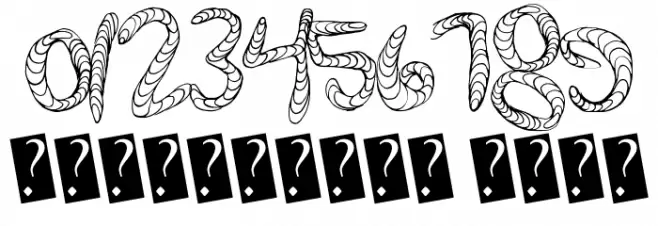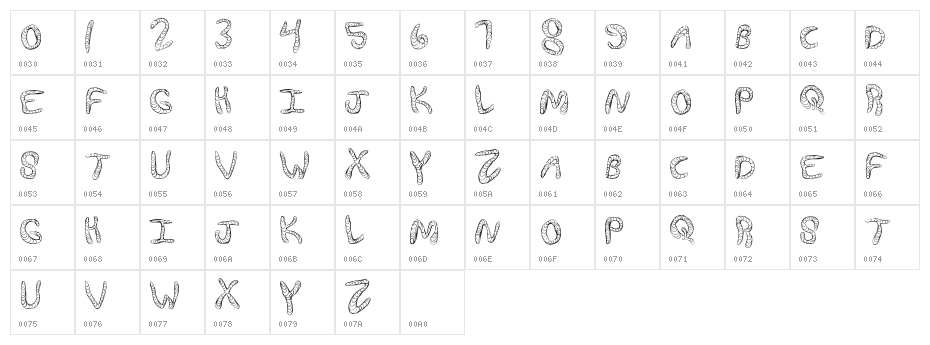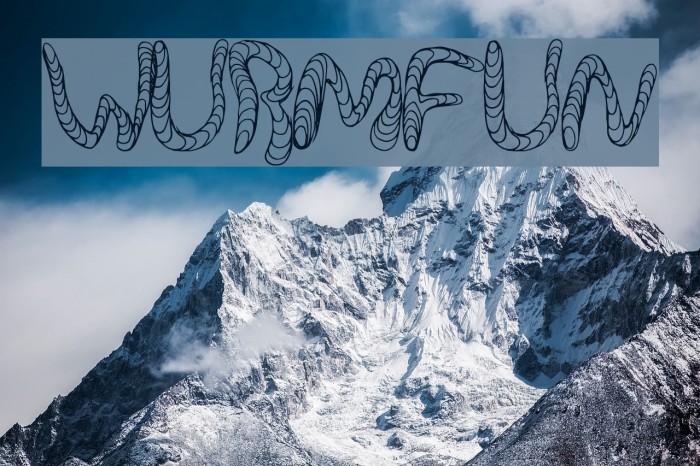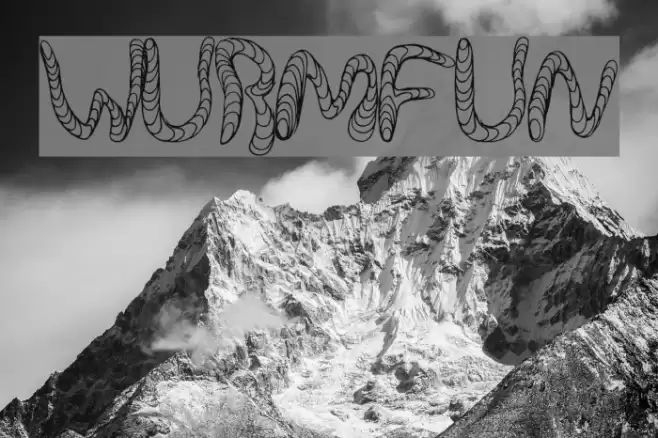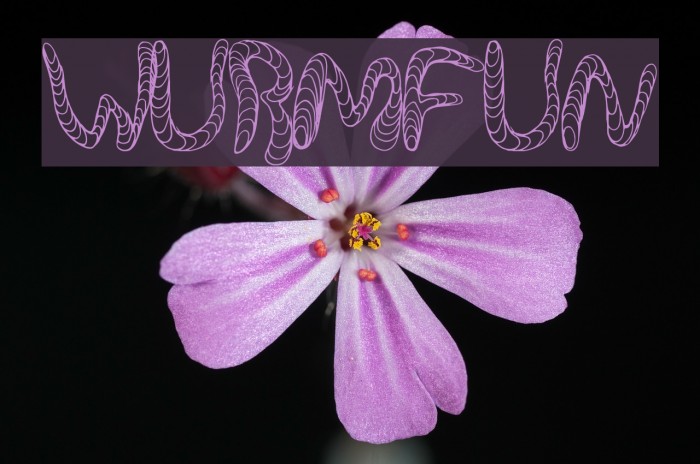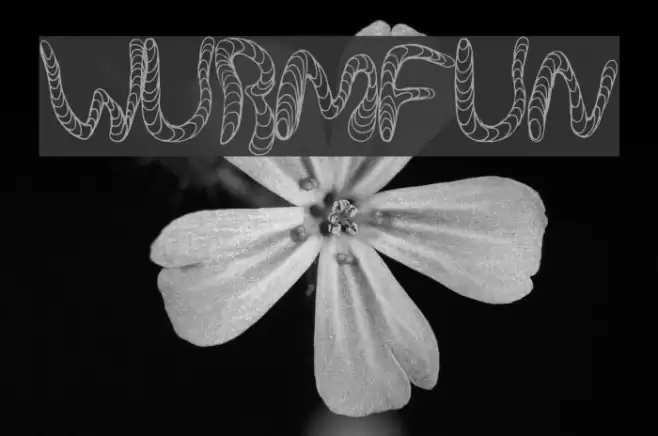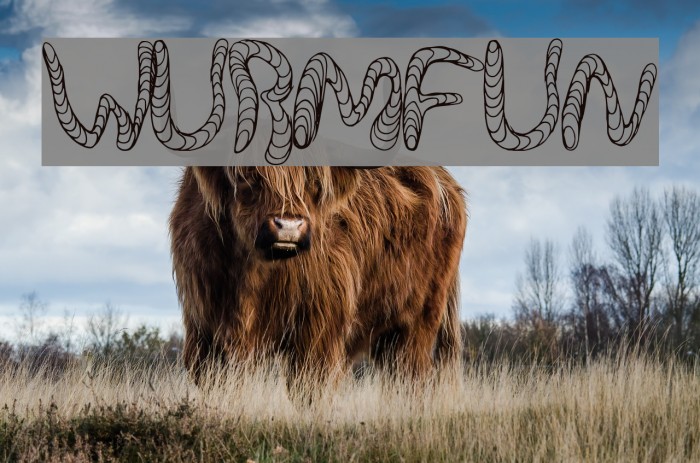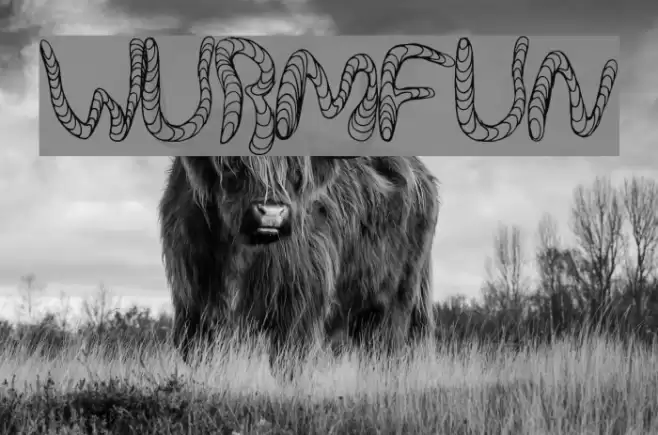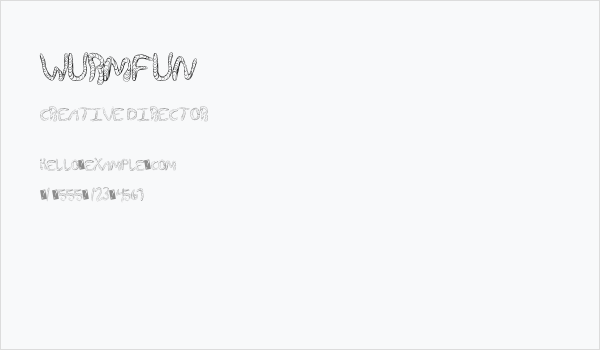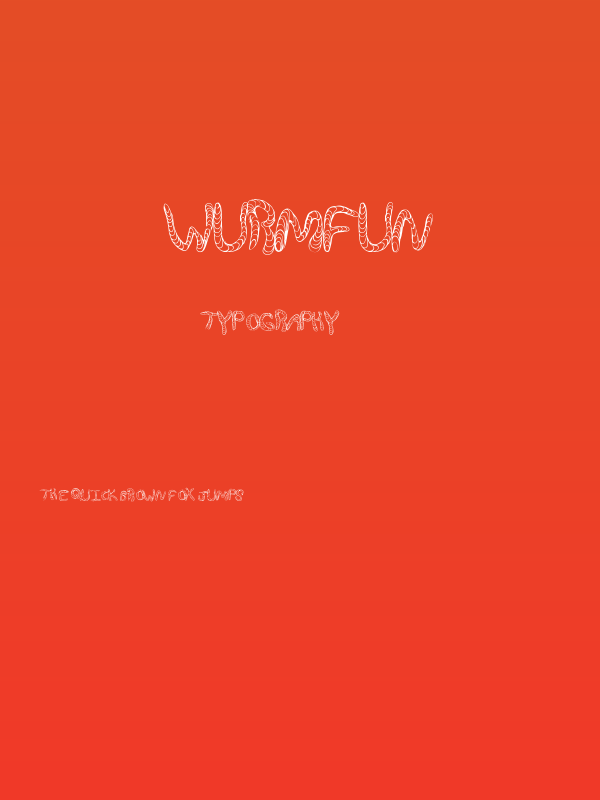
WurmFun Font
WurmFun Description
This playful and whimsical font features a unique design where each character is styled to resemble a coiled rope or worm. The letters are bold and rounded, with intricate detailing that gives them a textured appearance. The font maintains a consistent thickness throughout, creating a cohesive look. It is highly decorative and eye-catching, making it ideal for projects that require a fun and engaging aesthetic. The characters are evenly spaced, ensuring readability despite their intricate design.
| Overall Style | Whimsical |
| Proposed Projects | Ideal for children's book covers, playful branding, party invitations, and creative posters. |